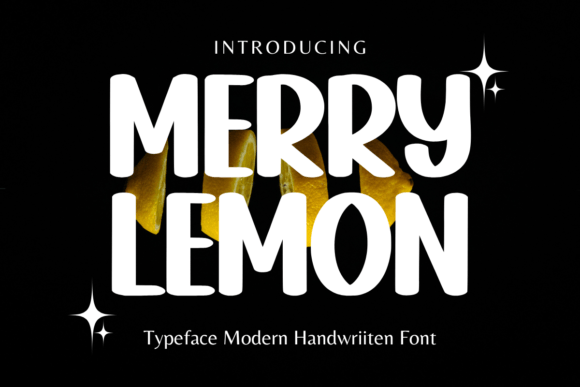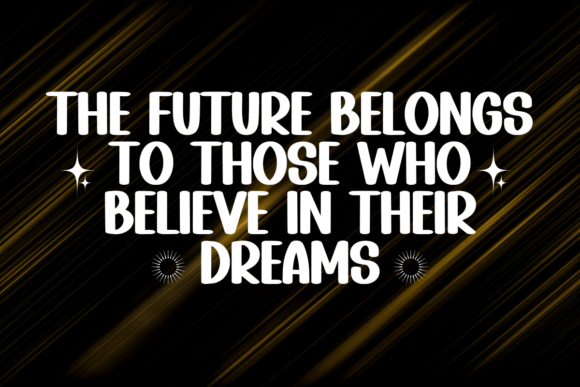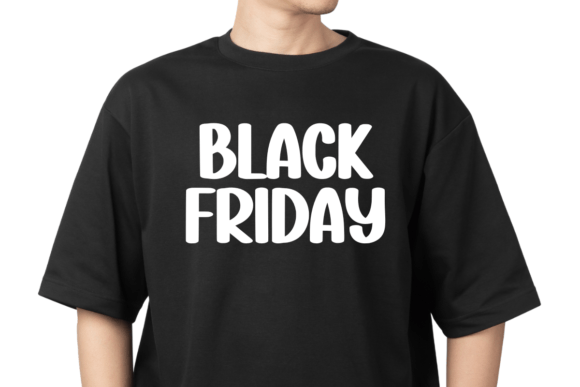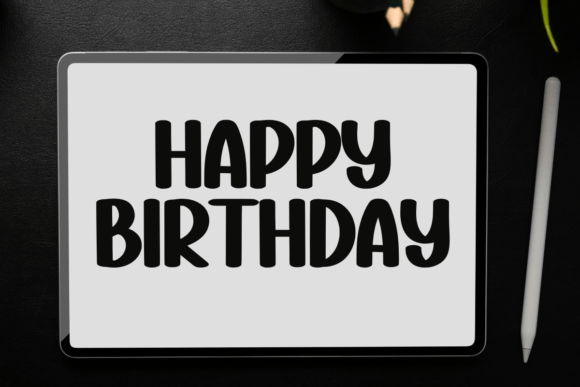
Merry Lemon Font
About the Merry Lemon Font
The wait is over! The incredible Merry Lemon Font is now available for your design toolkit. Merry Lemon is a fun and neat handwritten sans-serif style that exudes a cheerful vibe. Its clean lines and playful curves make it perfect for adding a touch of whimsy to various designs. Ideal for invitations, greeting cards, posters, and anything that needs a friendly, approachable feel.
Merry Lemon thrives in applications requiring a lighthearted and approachable aesthetic. It excels in headlines, short-form text on posters and packaging, and branding for products targeting a younger demographic or those emphasizing fun and friendliness. Avoid using it for large blocks of body text or UI elements; its informal nature hinders readability in extended passages.
Pairing Merry Lemon with a clean sans-serif like Open Sans for body copy creates a balanced contrast. For a more sophisticated feel, consider a classic serif such as Garamond or a slightly more geometric sans-serif like Montserrat. These pairings provide stability and readability while complementing Merry Lemon’s playful energy.
The font’s overall personality is best described as cheerful and friendly, yet refined enough to avoid appearing childish. It suits brands and projects that aim for a youthful, optimistic, and inviting image.
Merry Lemon Font Usage Examples
Merry Lemon Font Example